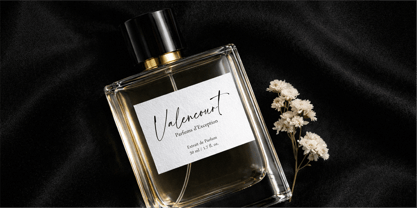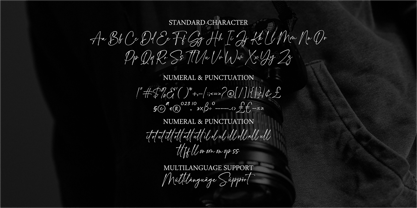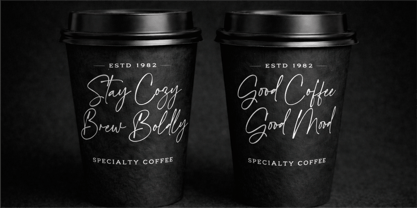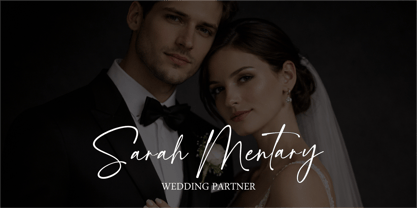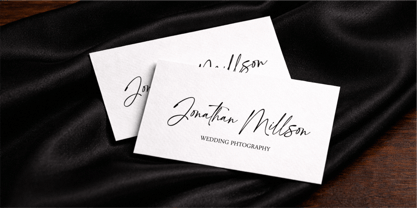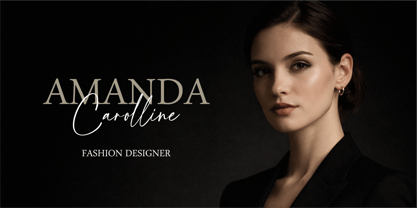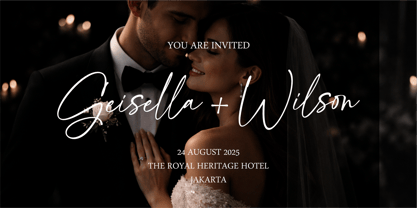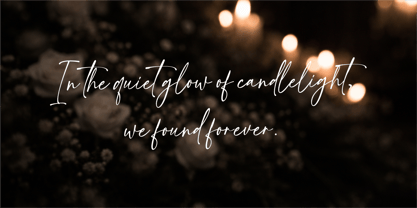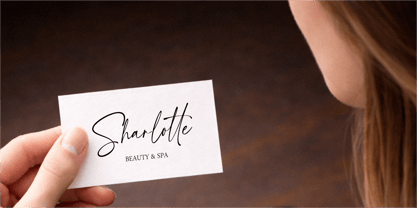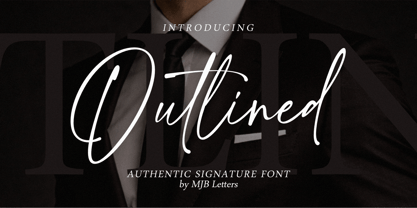
Outlined
by MJB Letters
The Outlined Font Family was designed by Muhammad Mujibulloh and published by MJB Letters. Outlined contains 1 styles. More about this family
Outlined is an elegant signature script font designed with a natural handwritten style. This font brings a smooth, stylish, and authentic look, perfect for creating professional and modern designs. Whether you're working on logos, wedding invitations, branding, or social media content, Outlined helps you create a strong and memorable visual identity. What’s Included: - Uppercase & Lowercase Letters - Numbers & Punctuation - Stylish Ligatures & Alternates - Multilingual Support Features: - Elegant handwritten script style - Smooth and natural flow - Easy to use in all major design software - Fully accessible OpenType features Perfect For: - Logo Design - Wedding Invitations - Branding & Identity - Social Media Graphics - Packaging Design - Quotes & Signatures Software Compatibility: Works perfectly with Adobe Illustrator, Photoshop, InDesign, Canva, CorelDraw, Affinity Designer, and more. Bring elegance and personality to your designs with Outlined – a signature script font that feels natural, stylish, and timeless.
Designers: Muhammad Mujibulloh
Current Foundry: MJB Letters